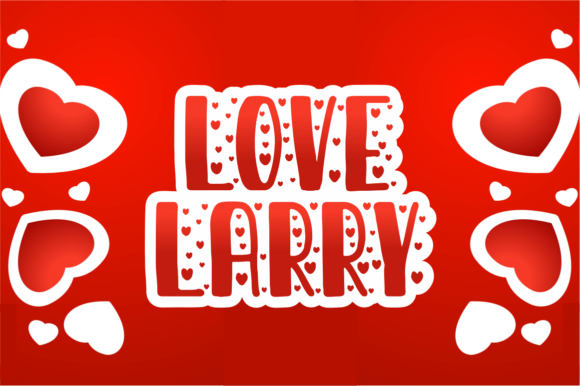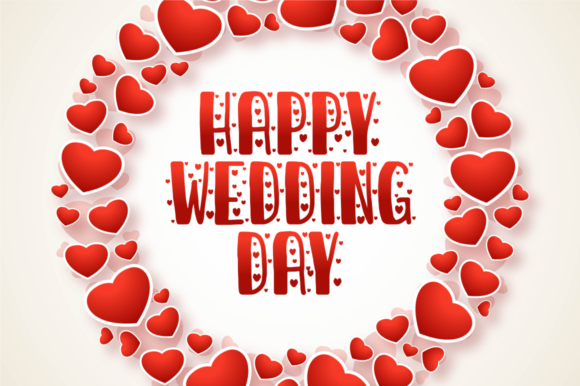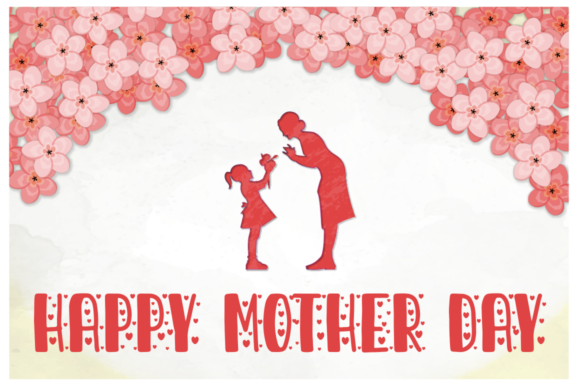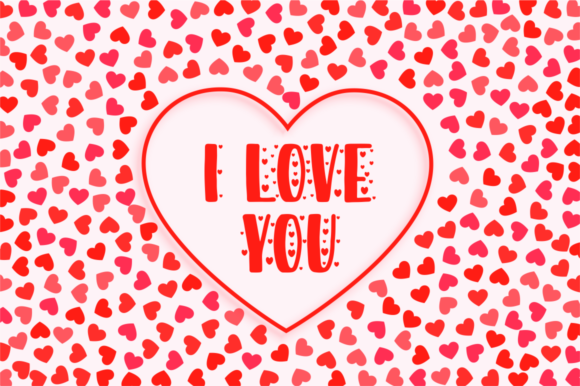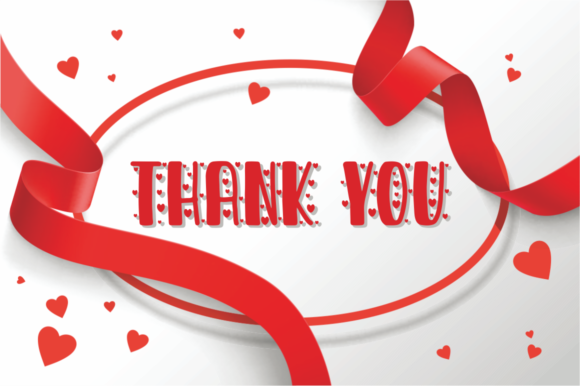
Love Larry Font
Love Larry embodies fun, quirkiness and authenticity. This enchanting handwritten font will turn any creative idea into a true standout.